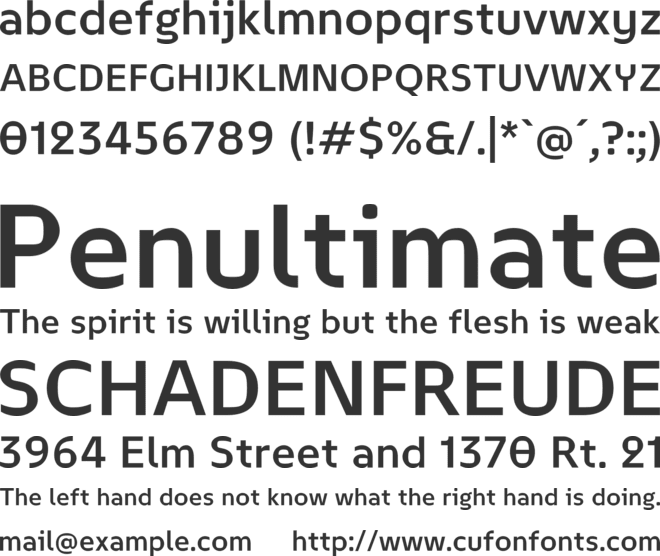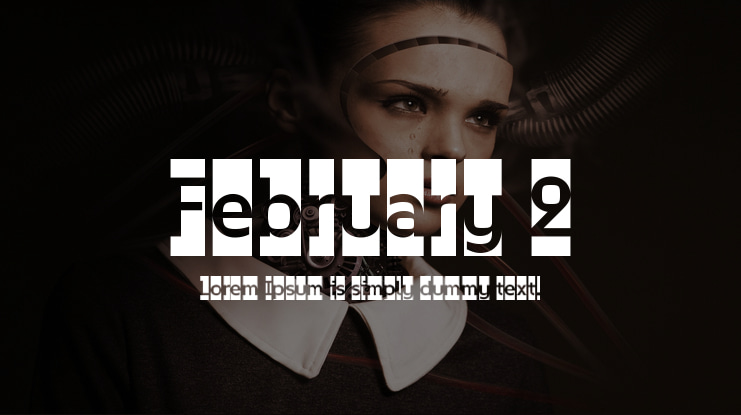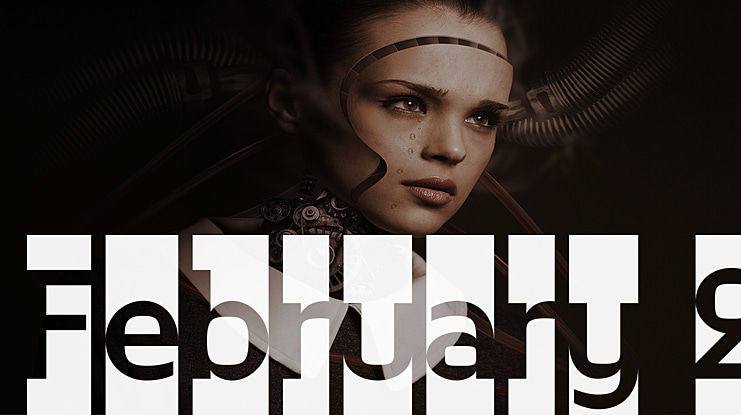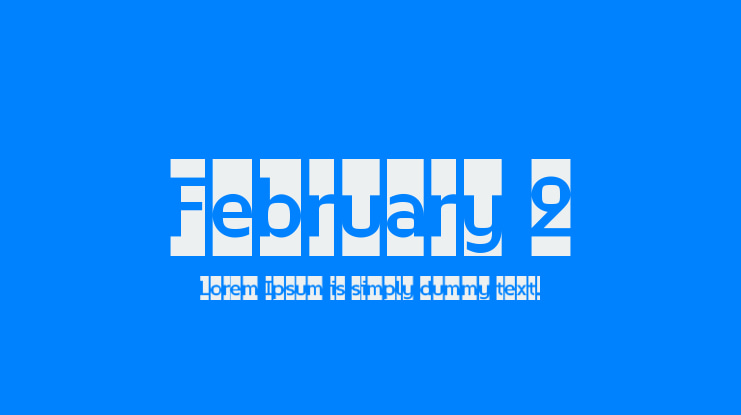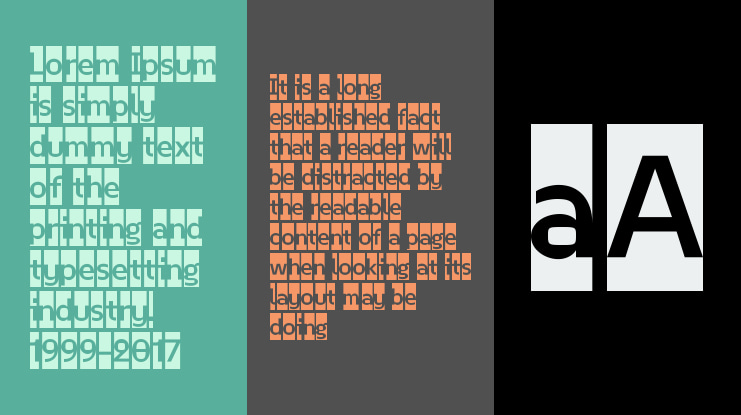
February 2 Font Family
February 2 - sans serif, combining a rounded rectangle and oval. It has two styles: normal and initials. Supports Cyrillic and extended Latin.